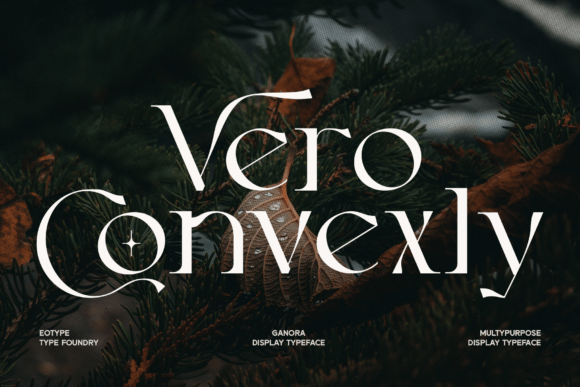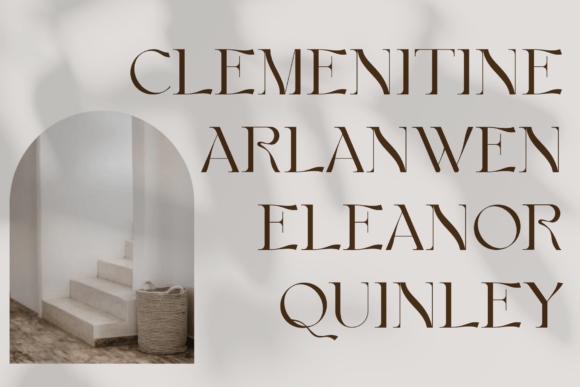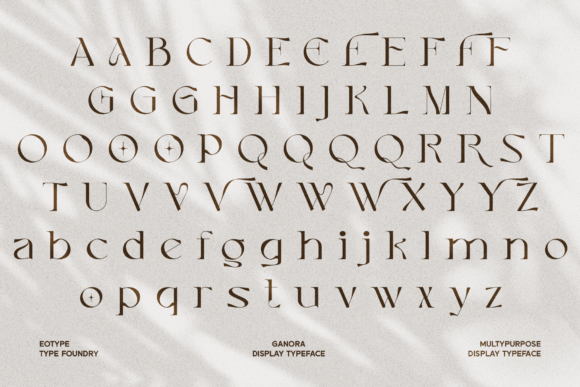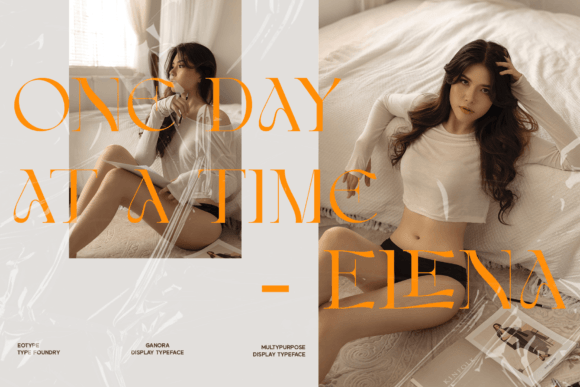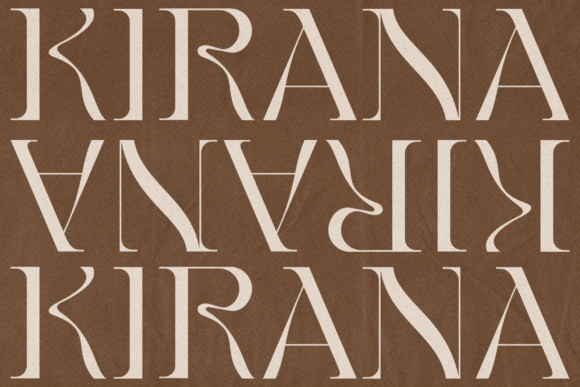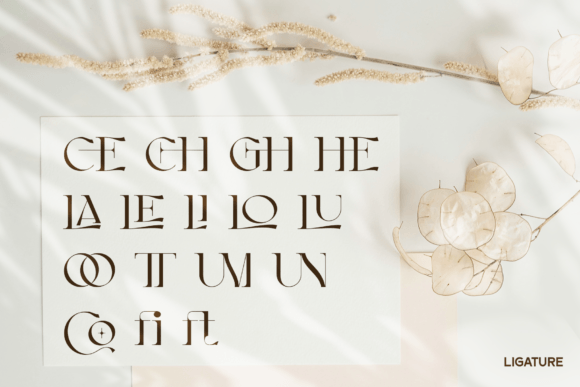
Introducing Ganora Font: Elevate Your Designs with Elegance and Modernity
In the world of typography, fonts play a pivotal role in conveying messages, evoking emotions, and adding aesthetic value to designs. Among the myriad of fonts available, Ganora stands out as a semi-serif display font that seamlessly blends classic elegance with modern sophistication. This article delves into the characteristics, benefits, and applications of the Ganora font, making a compelling case for its use in various design projects.
Understanding Ganora Font
Ganora is not just another font; it’s a semi-serif display typeface that has been crafted to offer the best of both worlds: the classic legibility of serif fonts and the sleek, modern appeal of sans-serif fonts. This unique combination makes Ganora an excellent choice for designers looking to add a touch of elegance and contemporary flair to their work.
Key Features of Ganora Font
- Beautiful and Aesthetic Look: Ganora boasts a visually appealing design that can instantly elevate the quality of any project. Its aesthetic appeal lies in its balanced strokes, elegant curves, and the perfect blend of traditional and modern typographic elements.
- Classic Serif Legibility: The font inherits the readability and classic appeal of serif fonts, making it suitable for body text, headings, and any content where clarity is paramount.
- Beautiful Modern Curves: What sets Ganora apart is its incorporation of modern curves, which add a level of sophistication and freshness to the font. These curves ensure that the text does not look outdated or overly traditional.
Benefits of Using Ganora Font
The benefits of using Ganora in your design projects are multifaceted:
- Versatility: Ganora’s semi-serif design makes it versatile enough to be used in a wide range of projects, from editorial and advertising to digital and web design.
- Readability: Despite its elegant and modern look, Ganora does not compromise on readability, making it an excellent choice for both headings and body text.
- Aesthetic Appeal: The font’s unique blend of classic and modern elements ensures that your designs stand out with a distinct aesthetic appeal.
Applications of Ganora Font
Ganora’s flexibility and stylish appearance make it suitable for various applications:
- Branding and Logo Design: Use Ganora to create memorable and elegant brand identities.
- Web Design: Enhance your website’s typography with Ganora, making it more engaging and professional.
- Print Design: Whether it’s brochures, posters, or business cards, Ganora can add a touch of sophistication to your print materials.
- Digital Media: From social media graphics to video titles, Ganora can elevate the visual appeal of your digital content.
In conclusion, Ganora font is a remarkable semi-serif display typeface that offers the perfect blend of classic legibility and modern aesthetics. Its versatility, readability, and unique design elements make it an invaluable asset for designers and crafters looking to enhance their projects. By incorporating Ganora into your design arsenal, you can confidently create visually stunning and effective designs that leave a lasting impression.